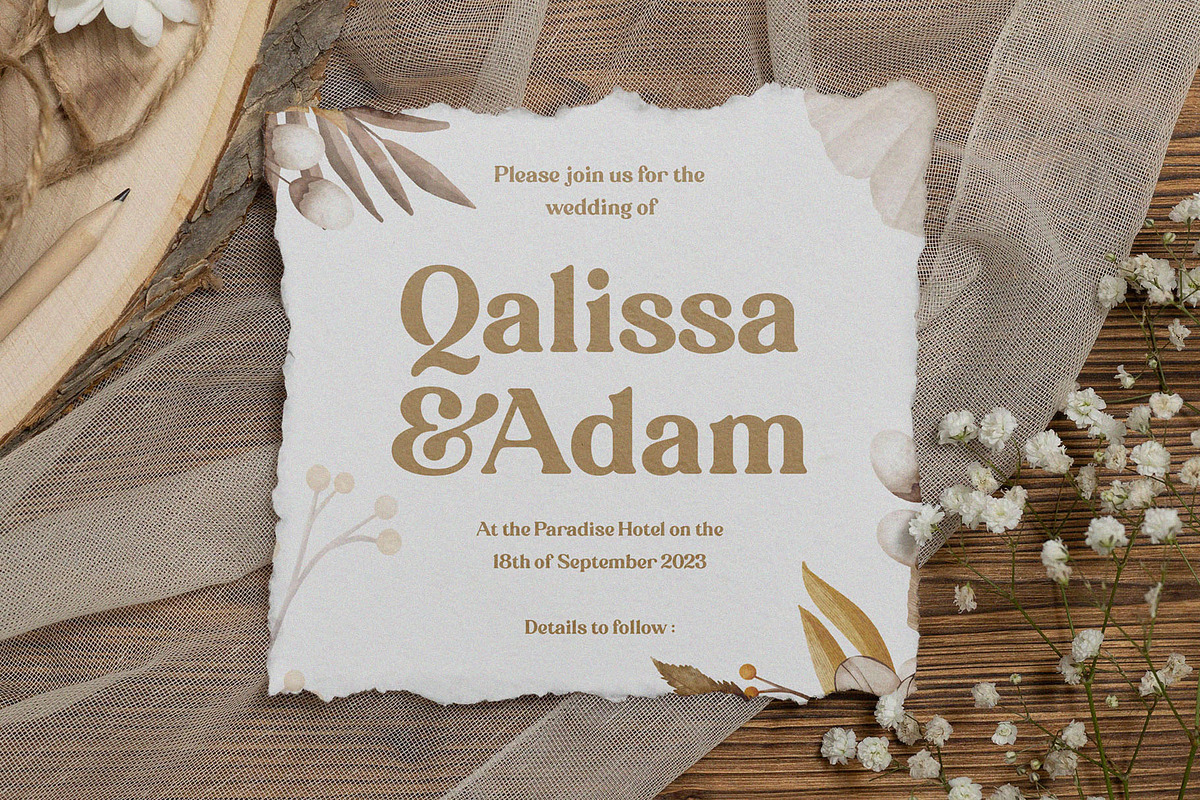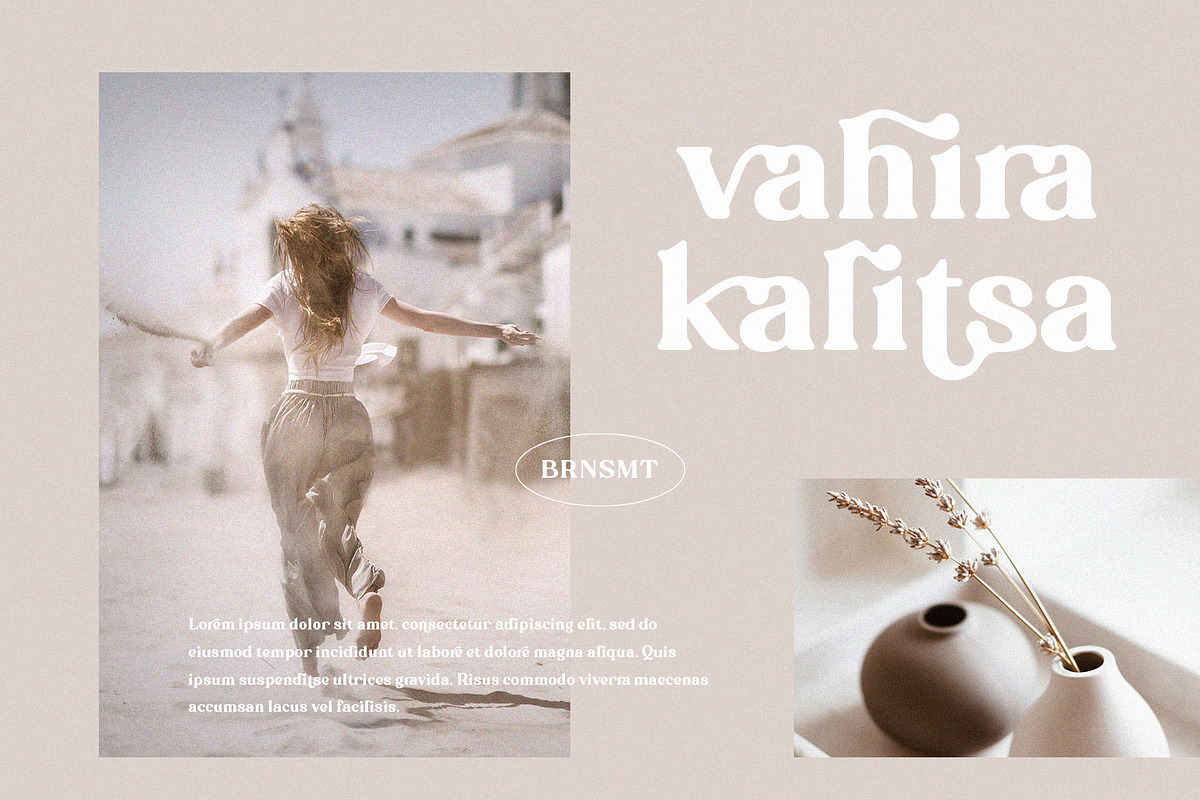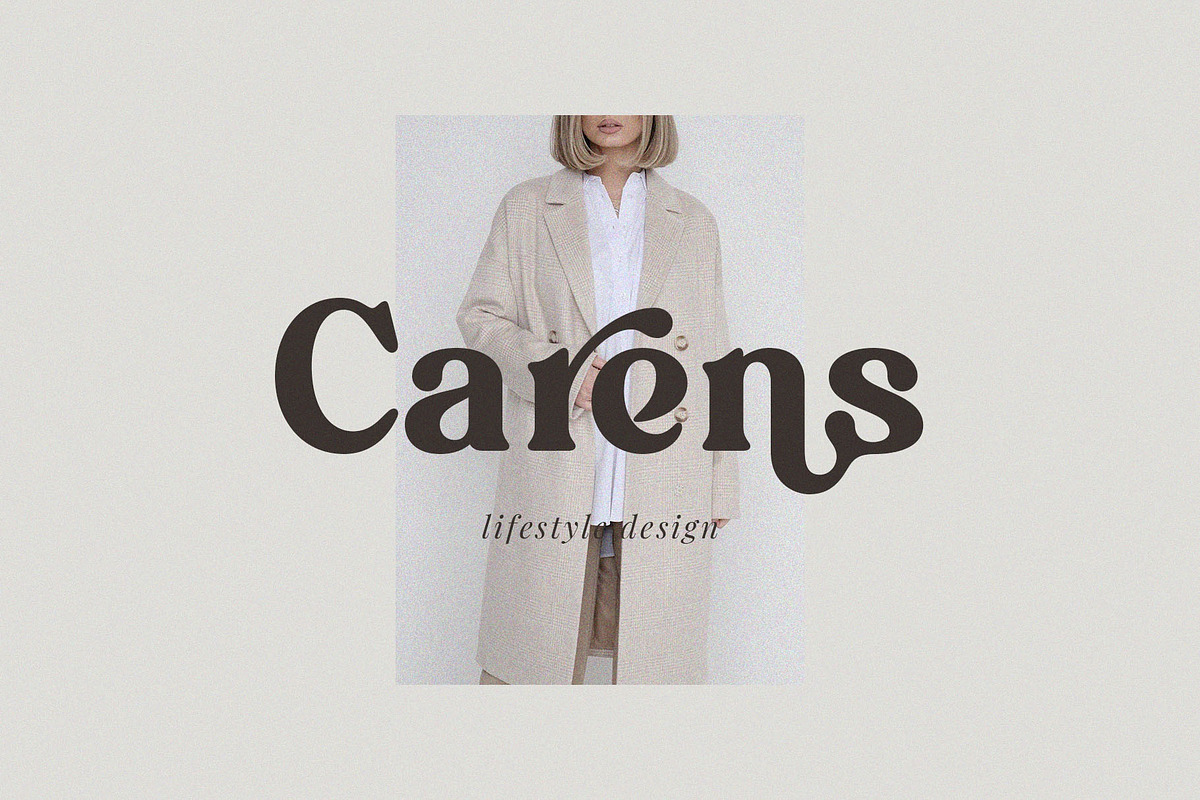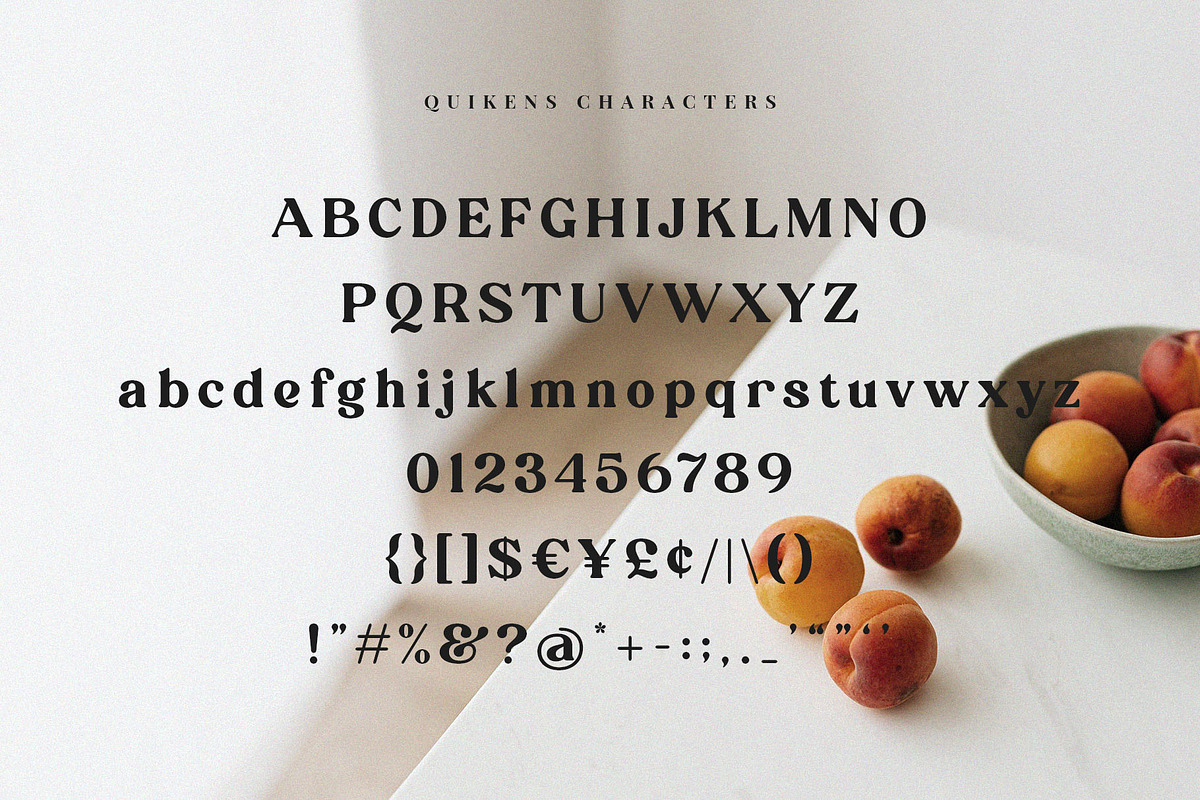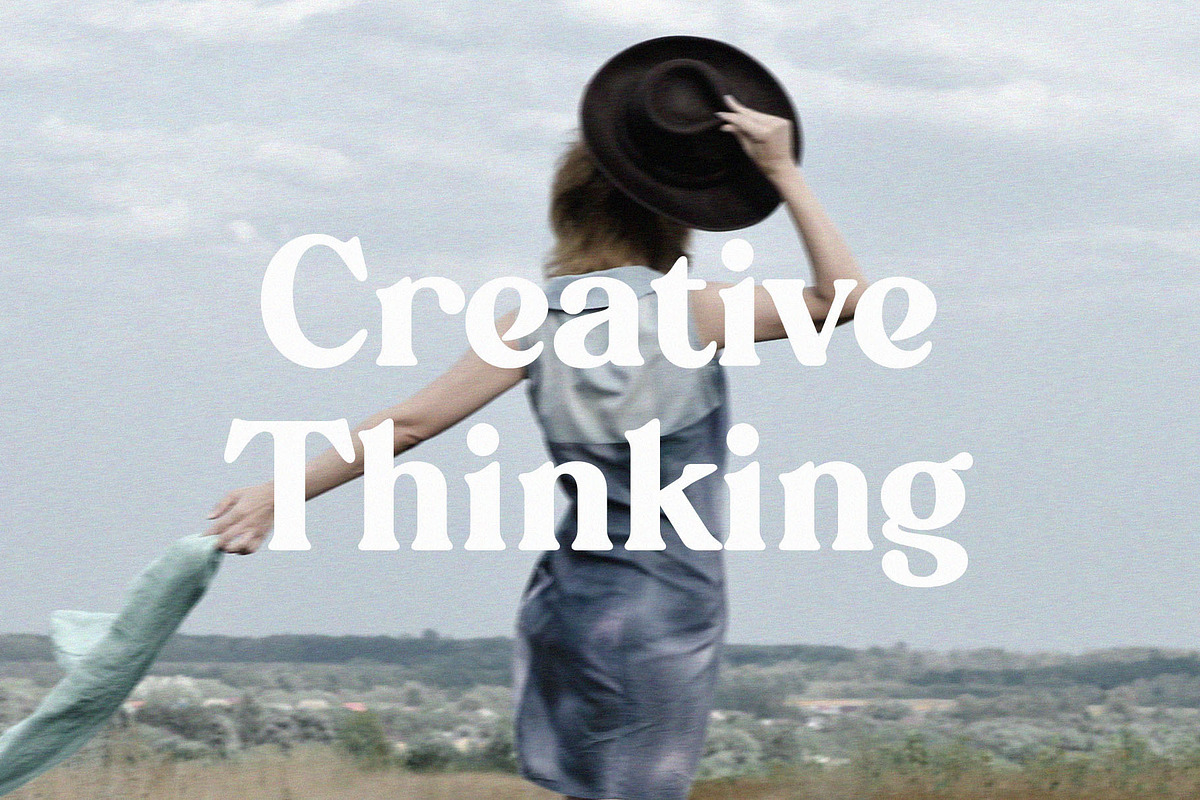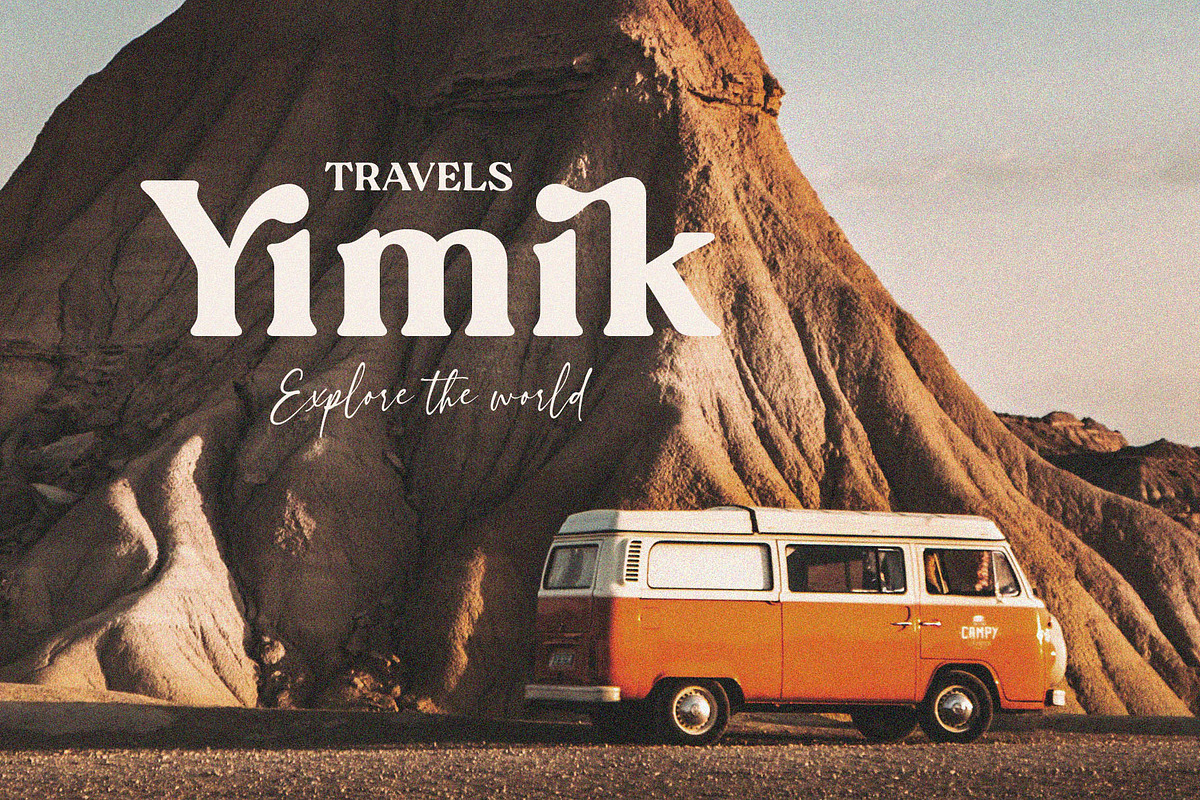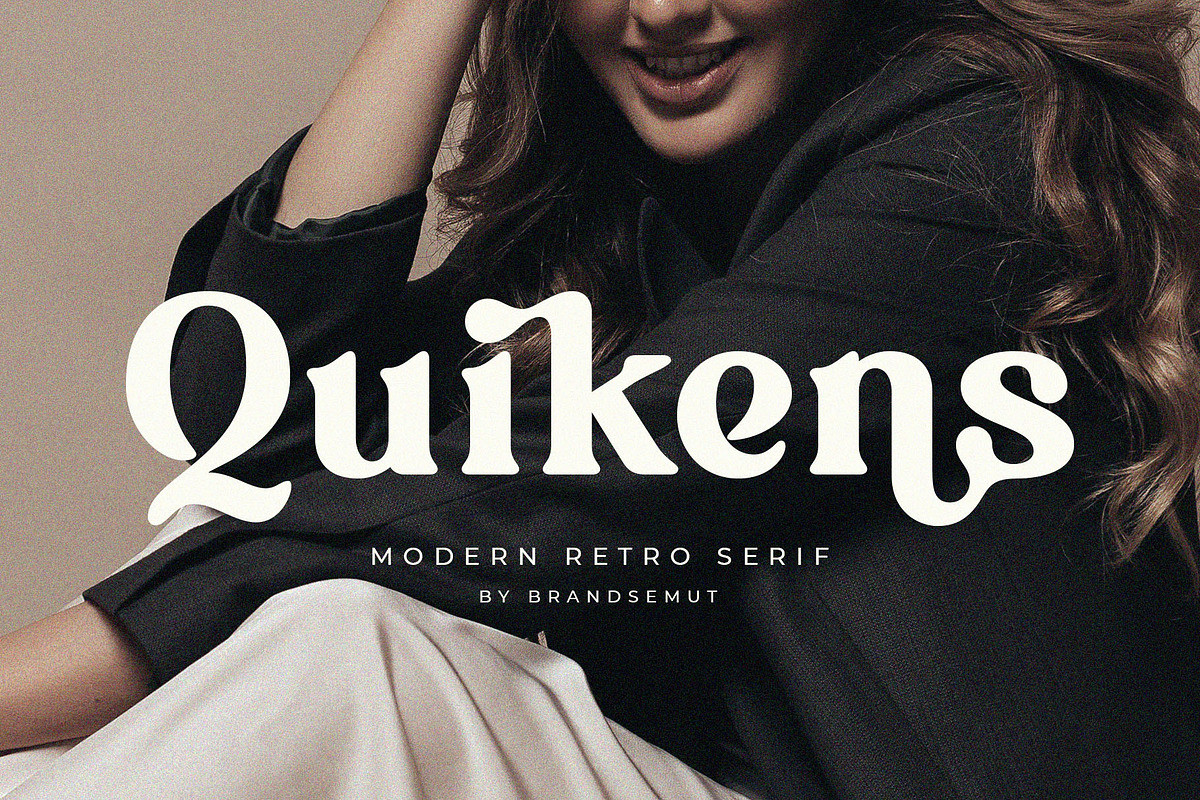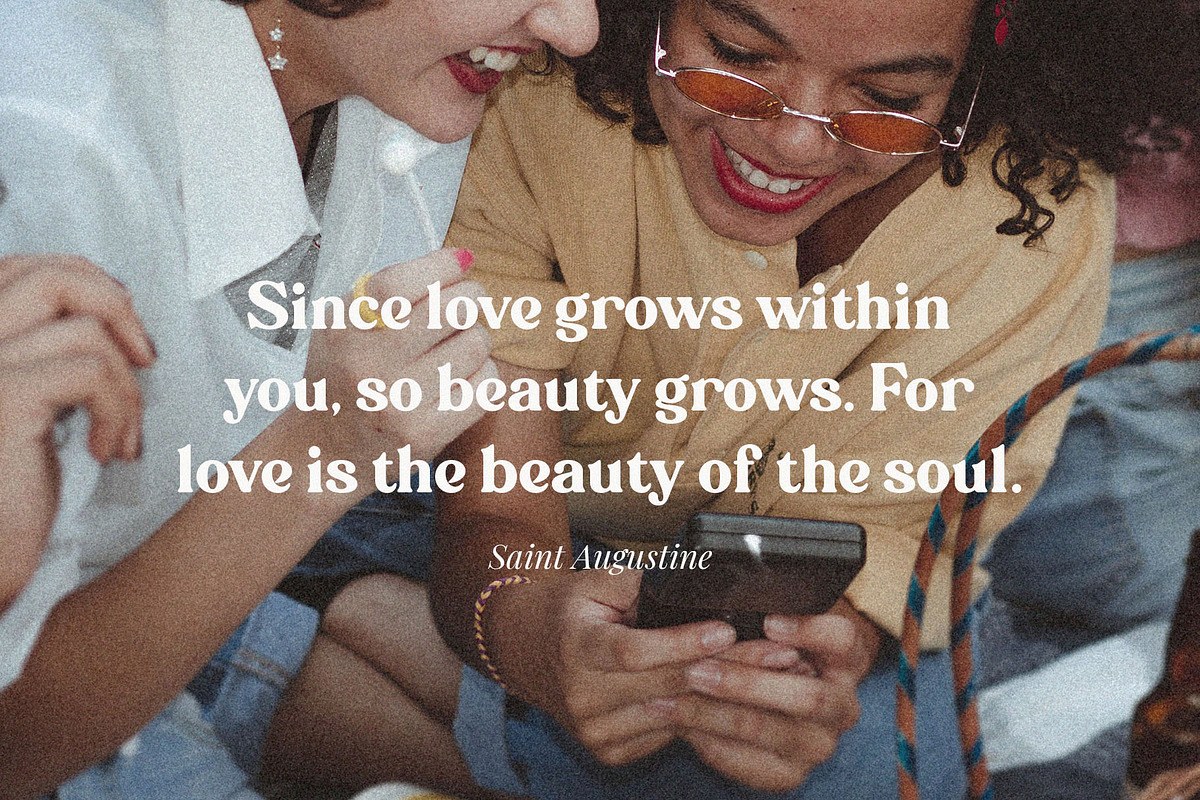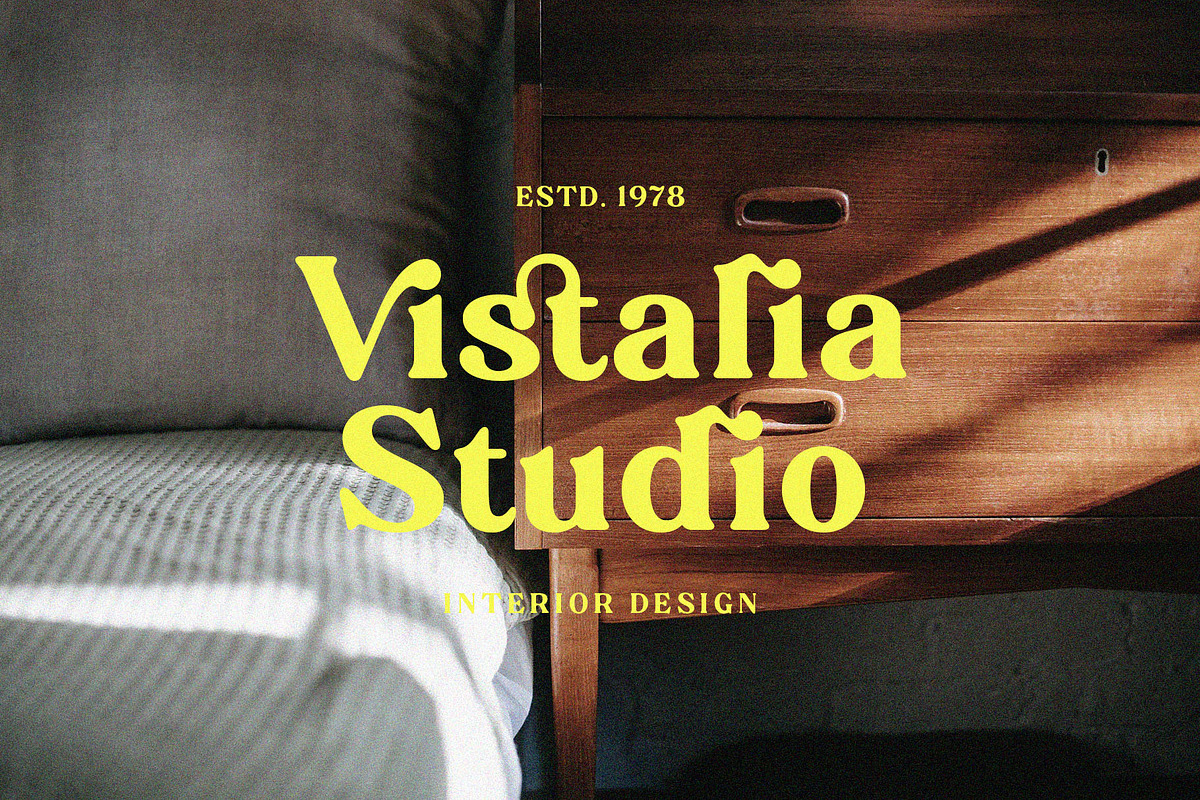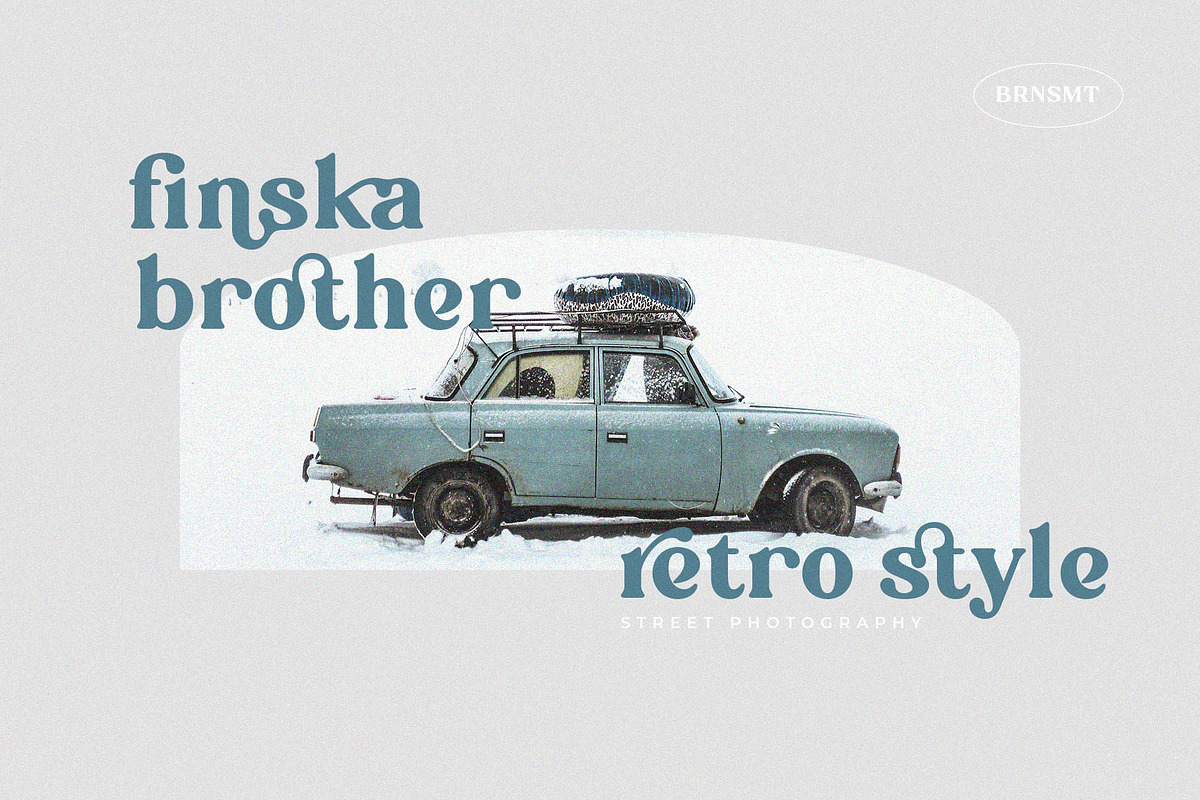
Quikens – Modern Retro Serif
Introducing Quikens Modern Retro Serif. Quikens is a retro and modern typeface, best used as a display for headings, logos, branding, magazines, product packaging and invitations. Quikens come with clean lines and smooth curves give any project an extra touch of class.